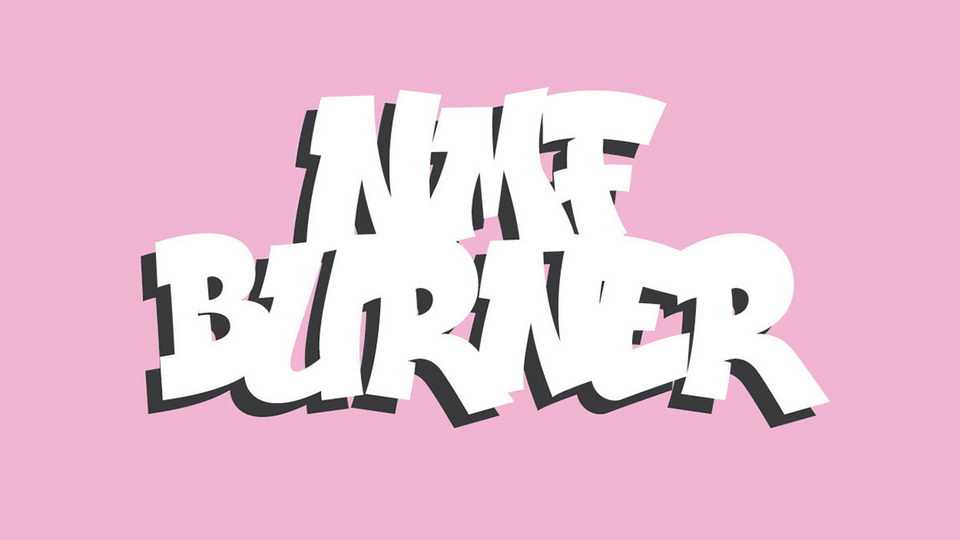
Download NMF Burner font, a classical graffiti burner all caps typeface. NMF Burner font is perfect for poster, t-shirts and apparel, labels, baners and other artworks.
Designer: Konrad Bednarski